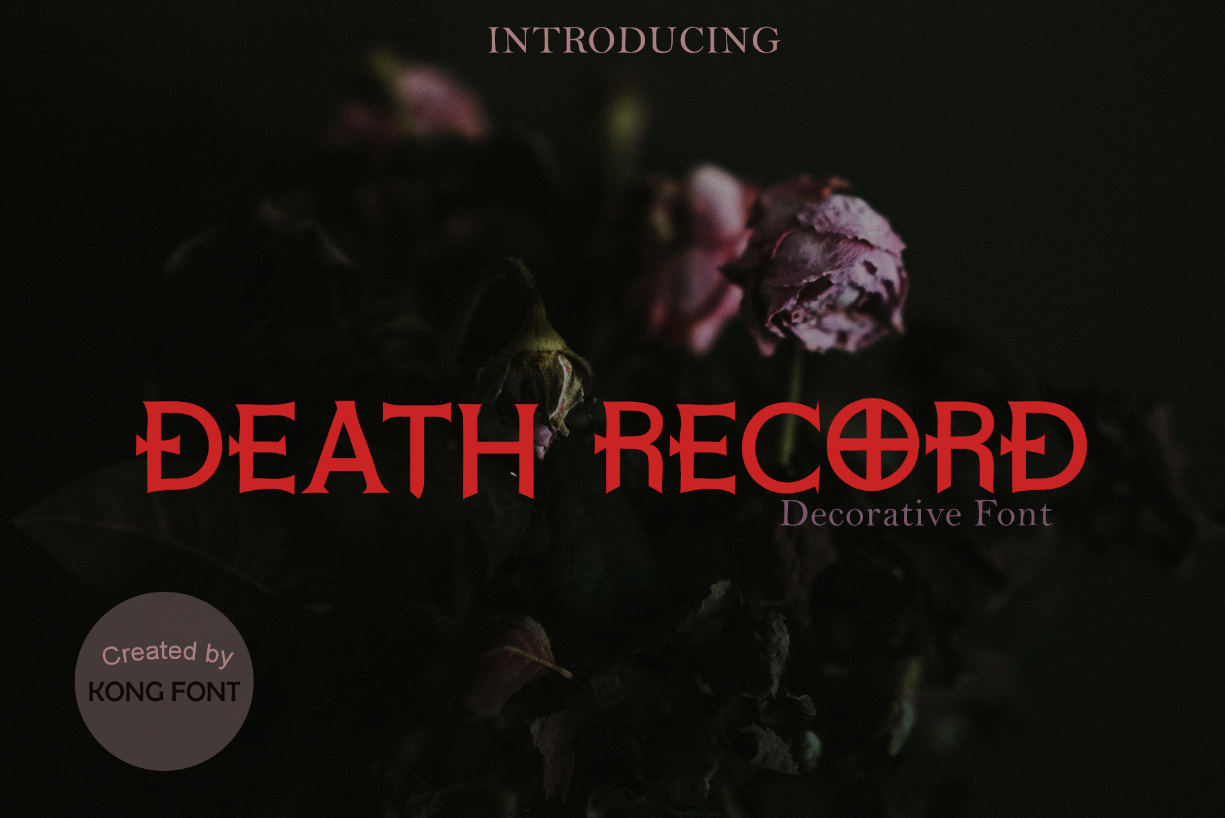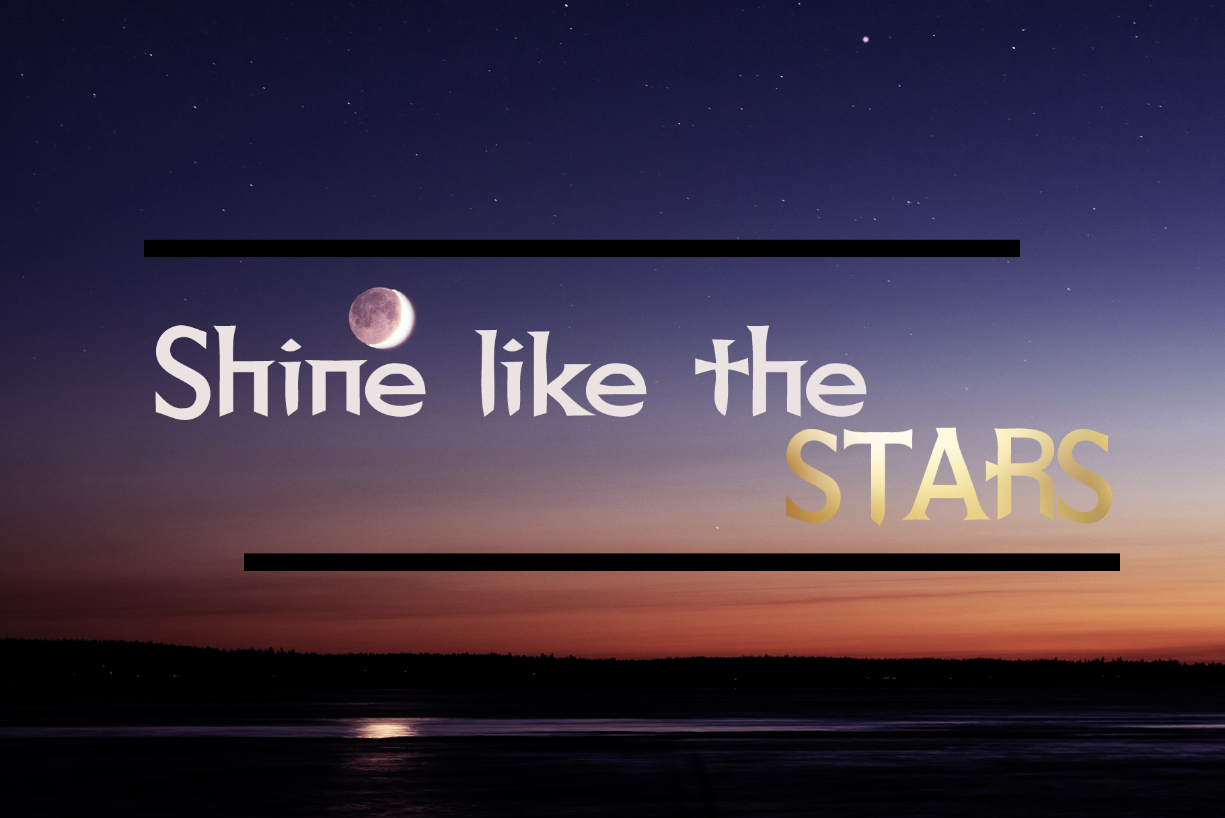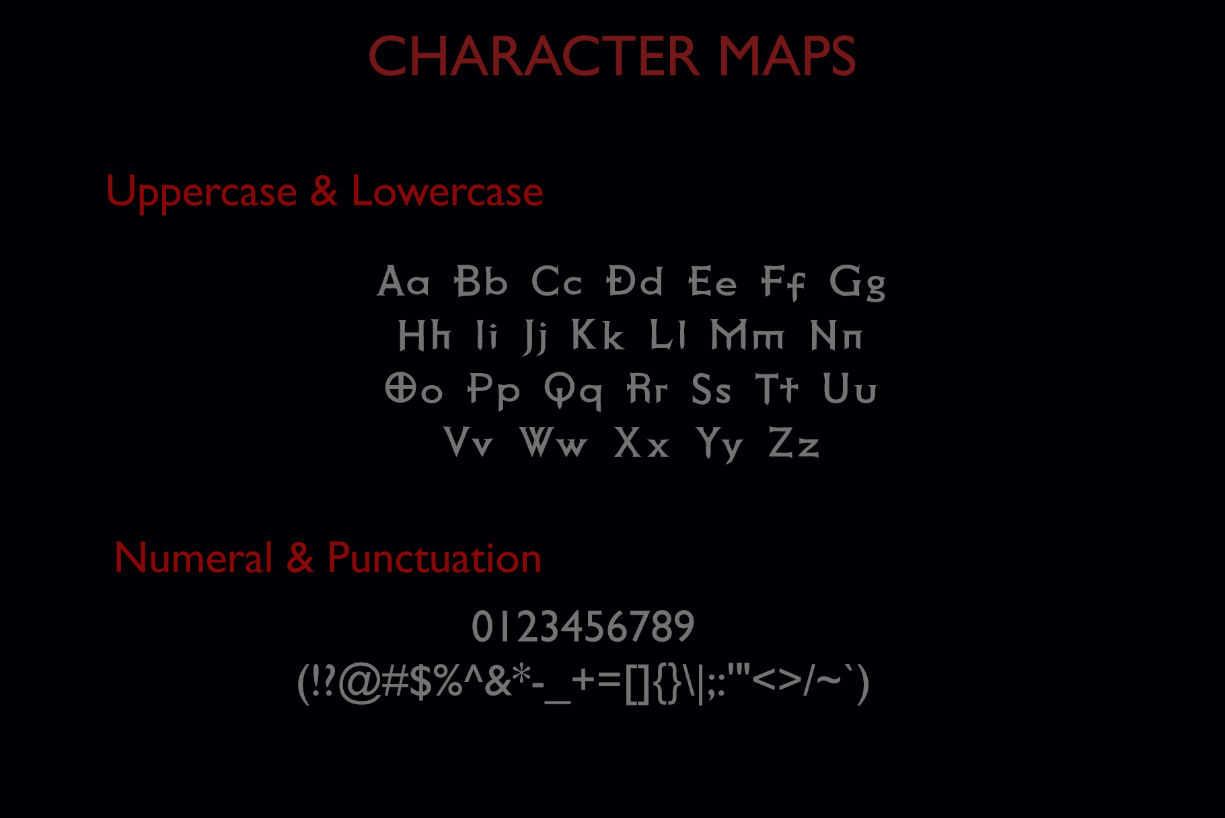
About Death Record Font
Death Record is a scary and assertive blackletter font. Itβs great for crafters and designers. Add it confidently to your projects, and you will love the results.